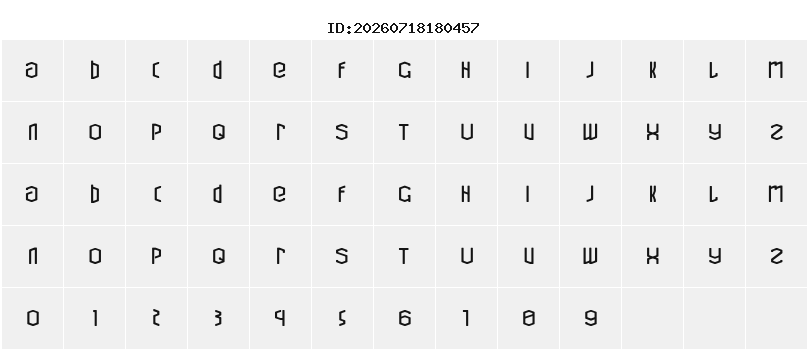
• Font Name: Cubic Refit
• Designer: Junior Souza
• Description: Modern and elegant sans serif free font.
About Cubic Refit.ttf
Cubic Refit.ttf is a modern, elegant sans-serif font designed for ultimate readability and visual harmony. Perfect for branding, headlines, web design, and print materials.